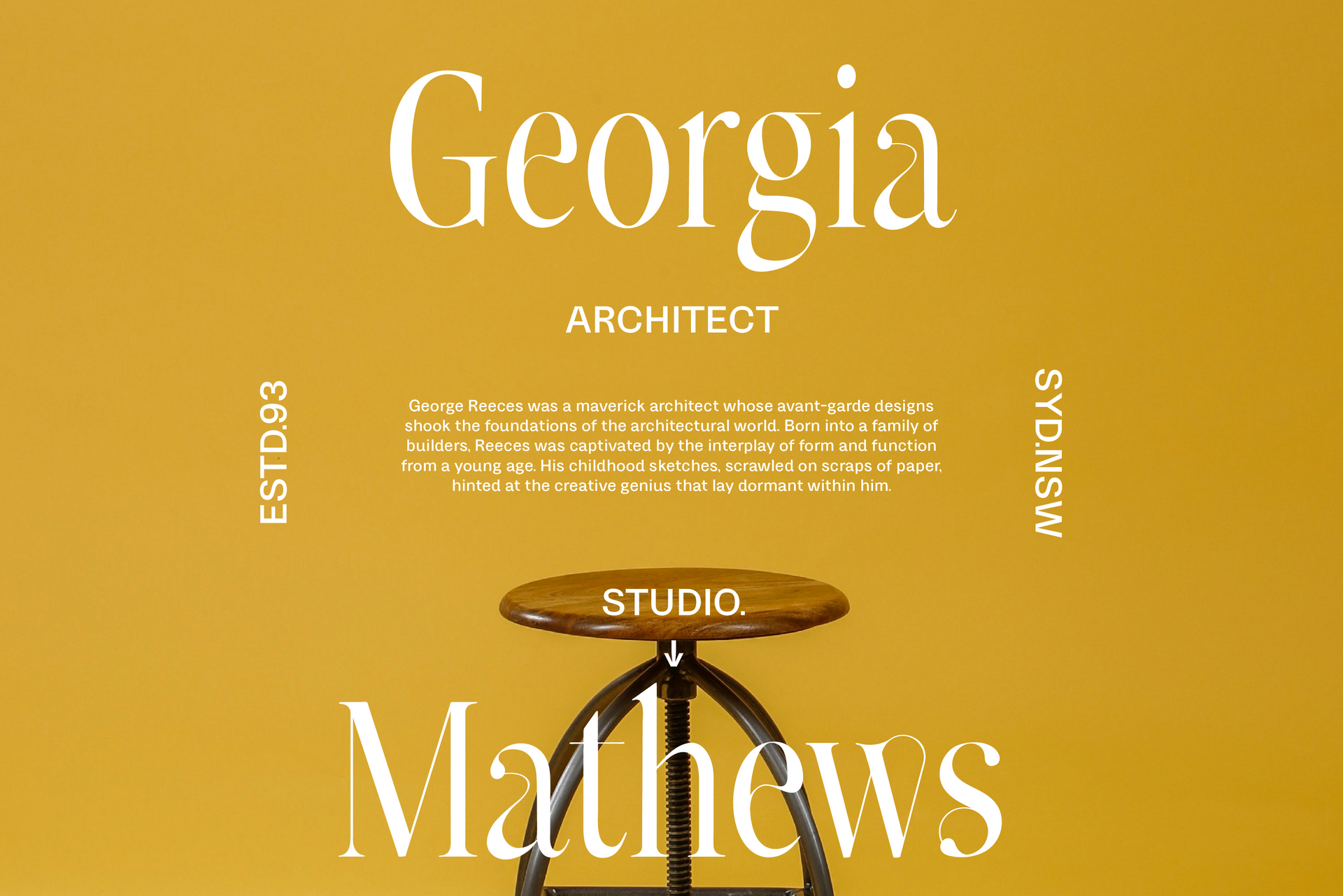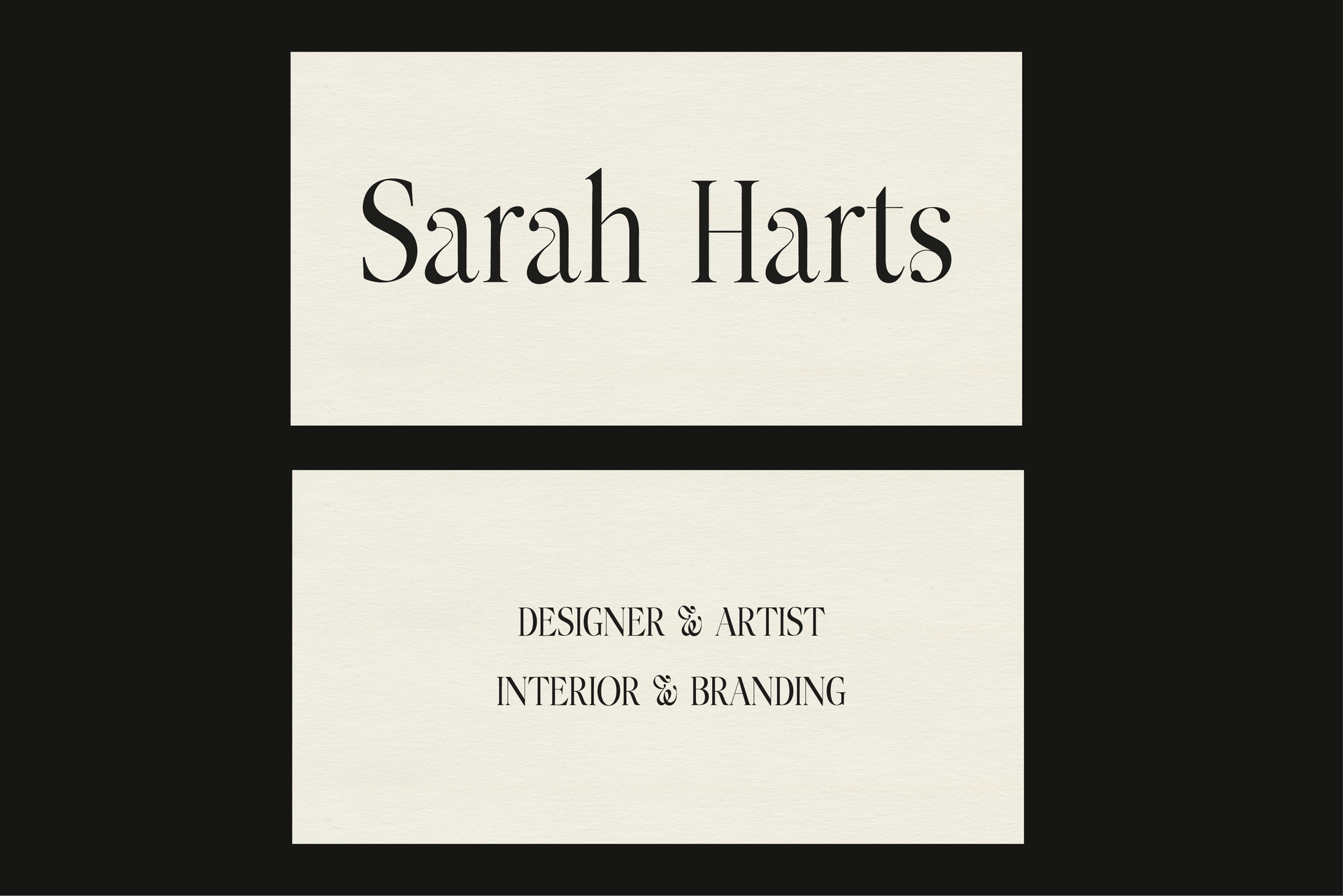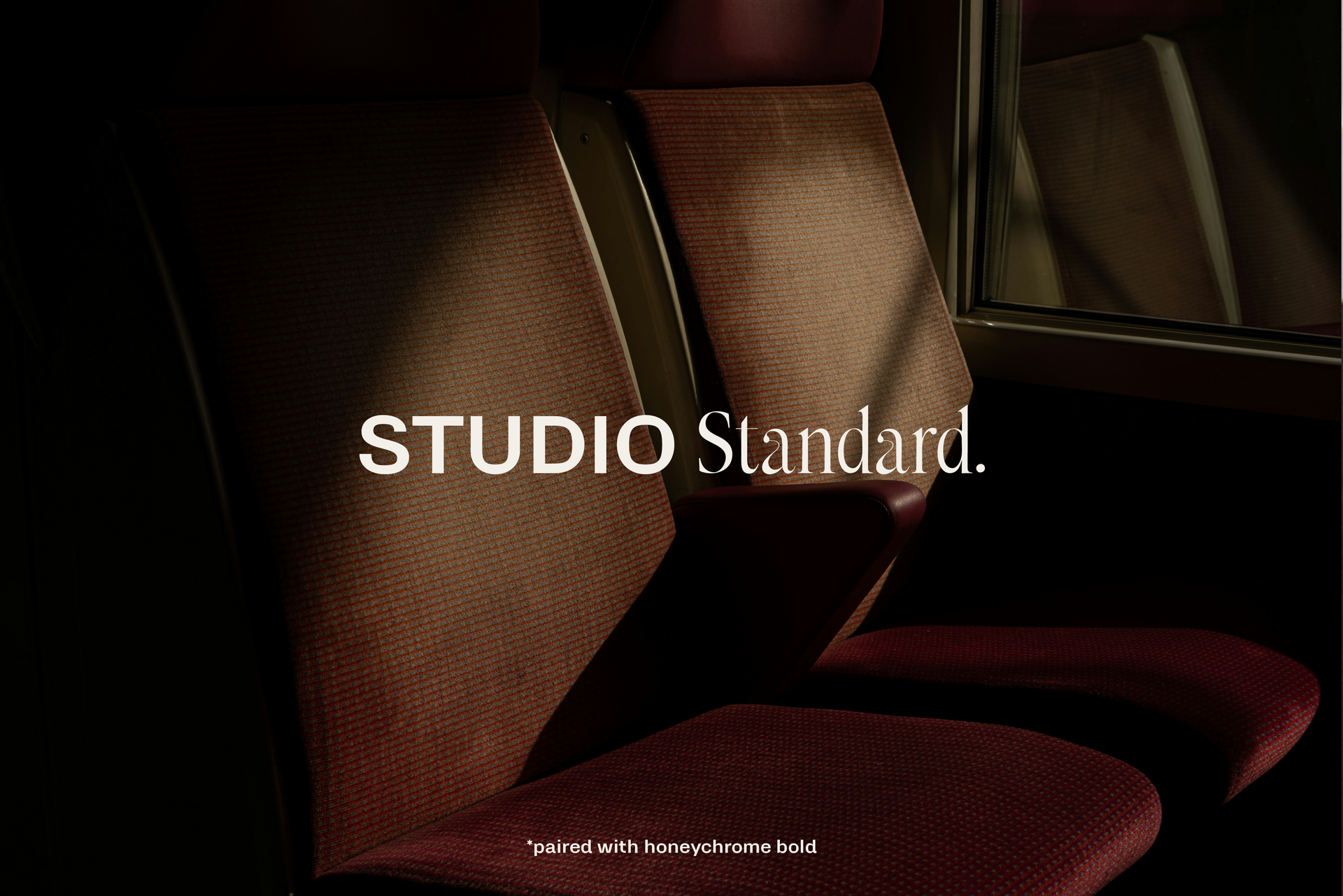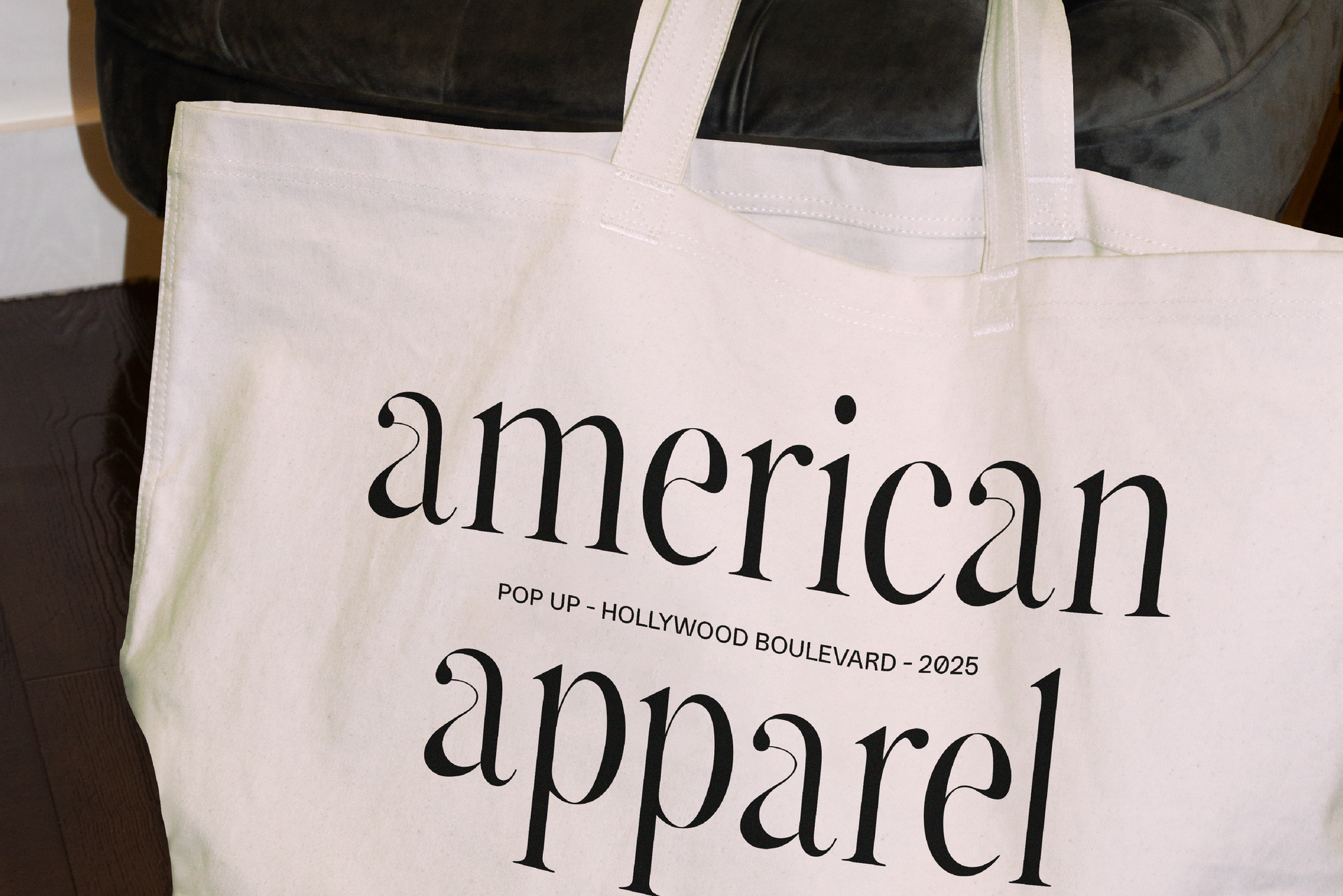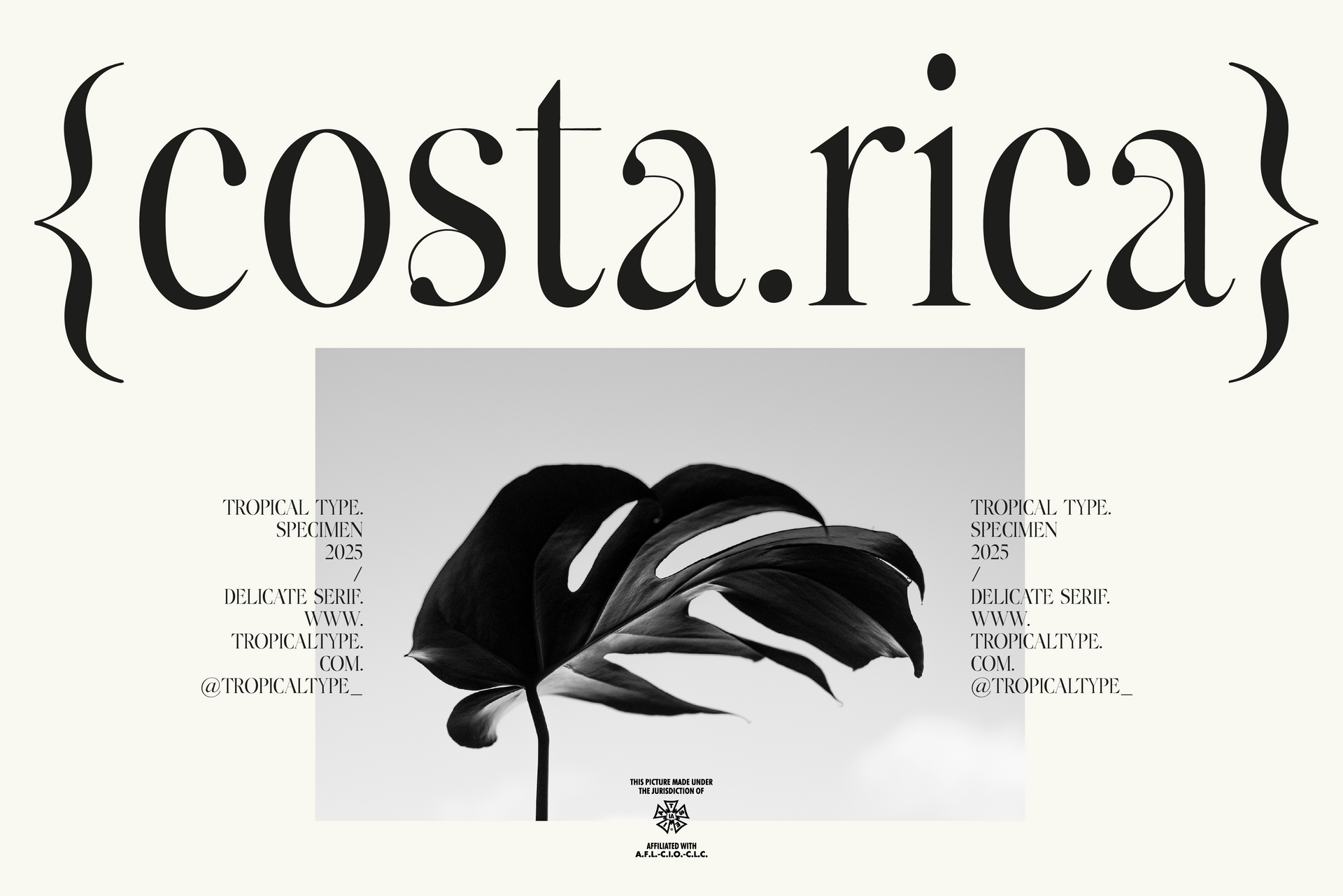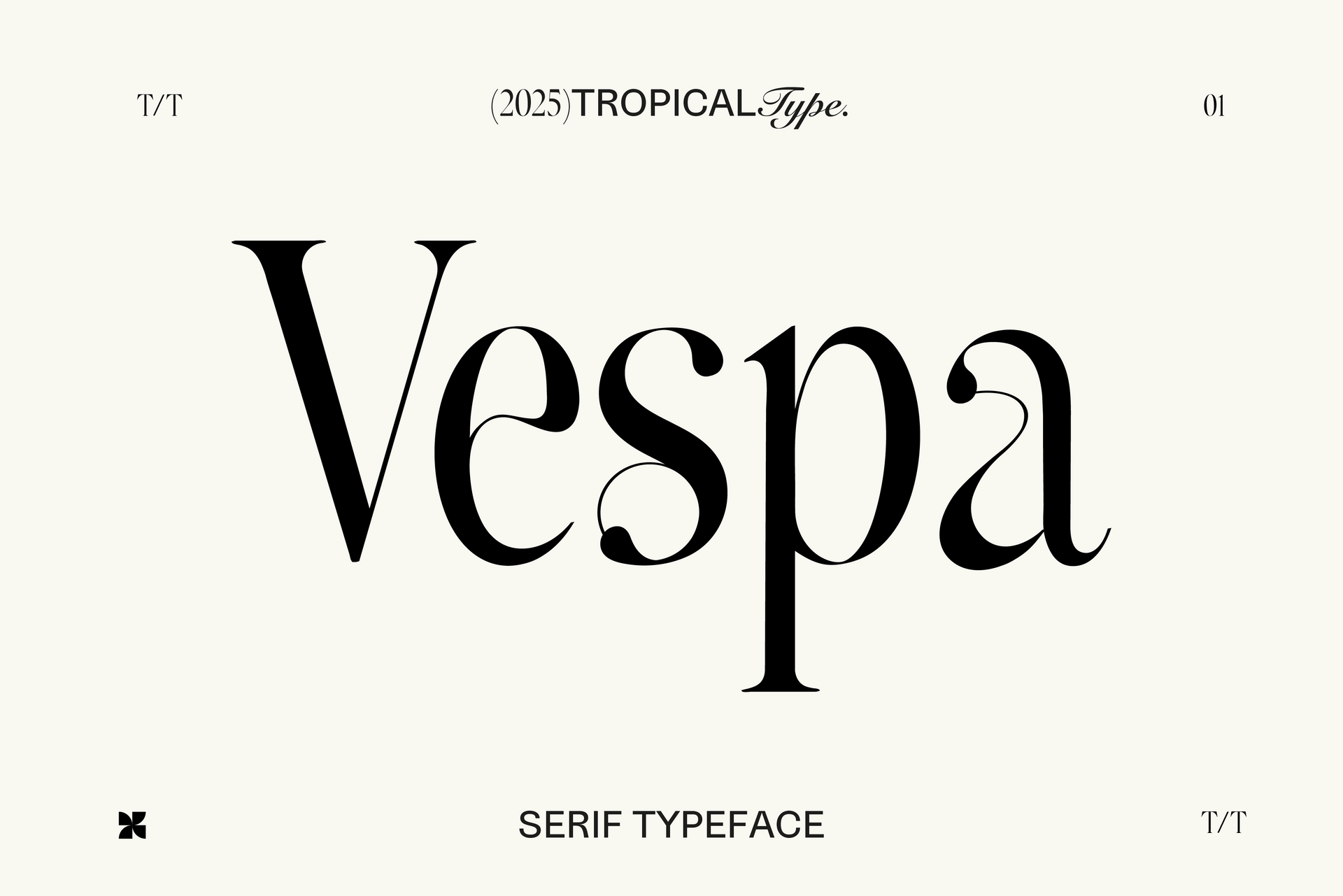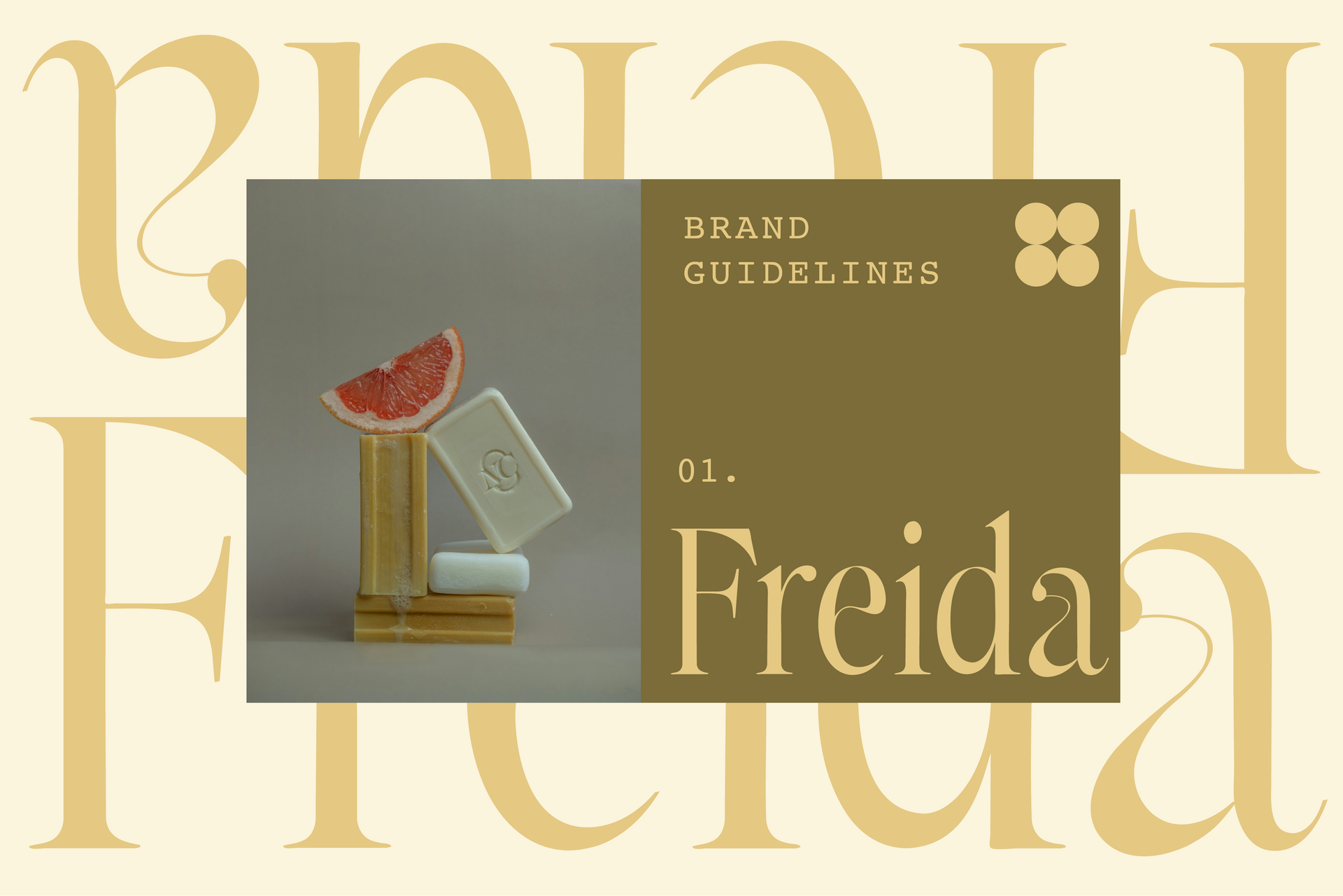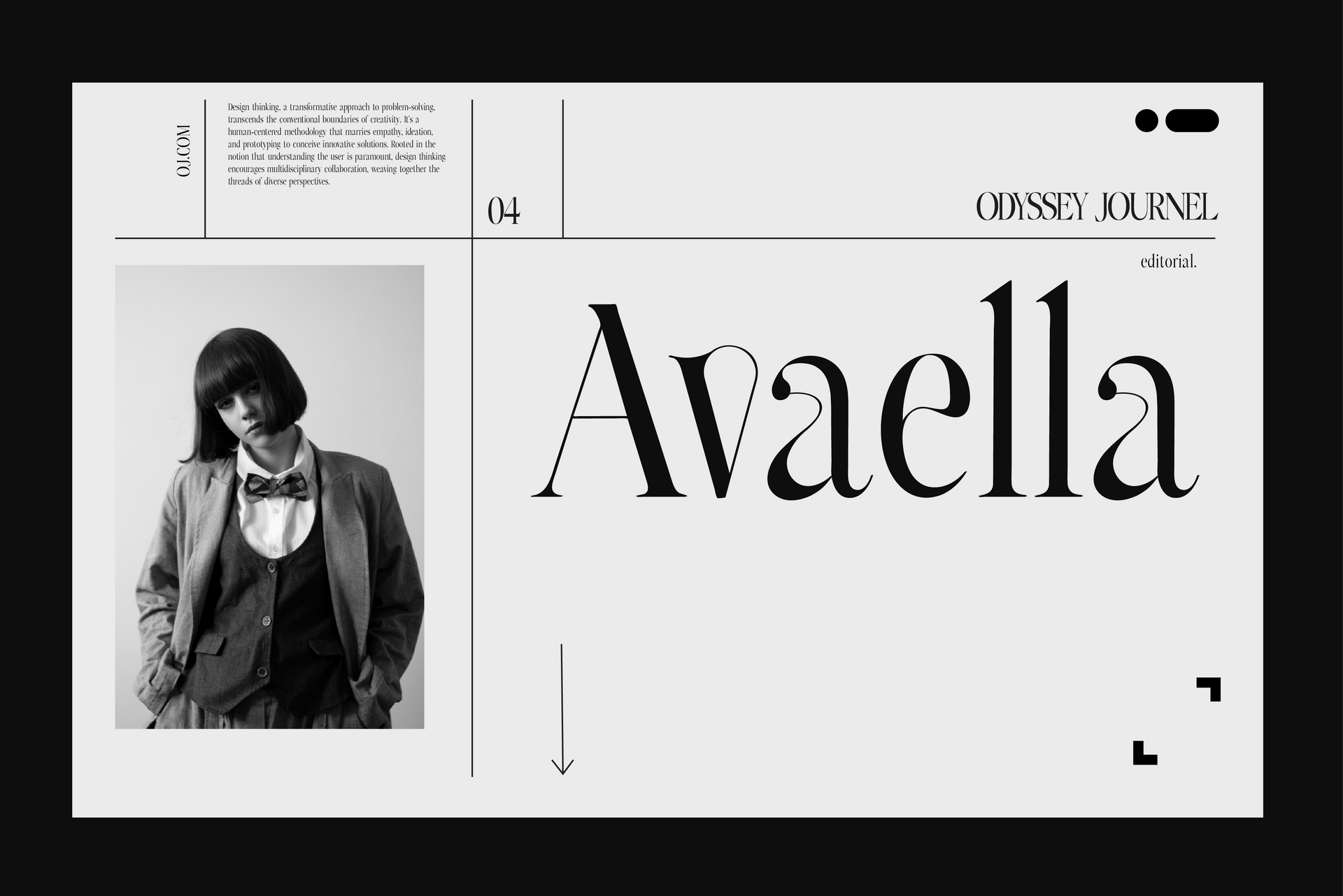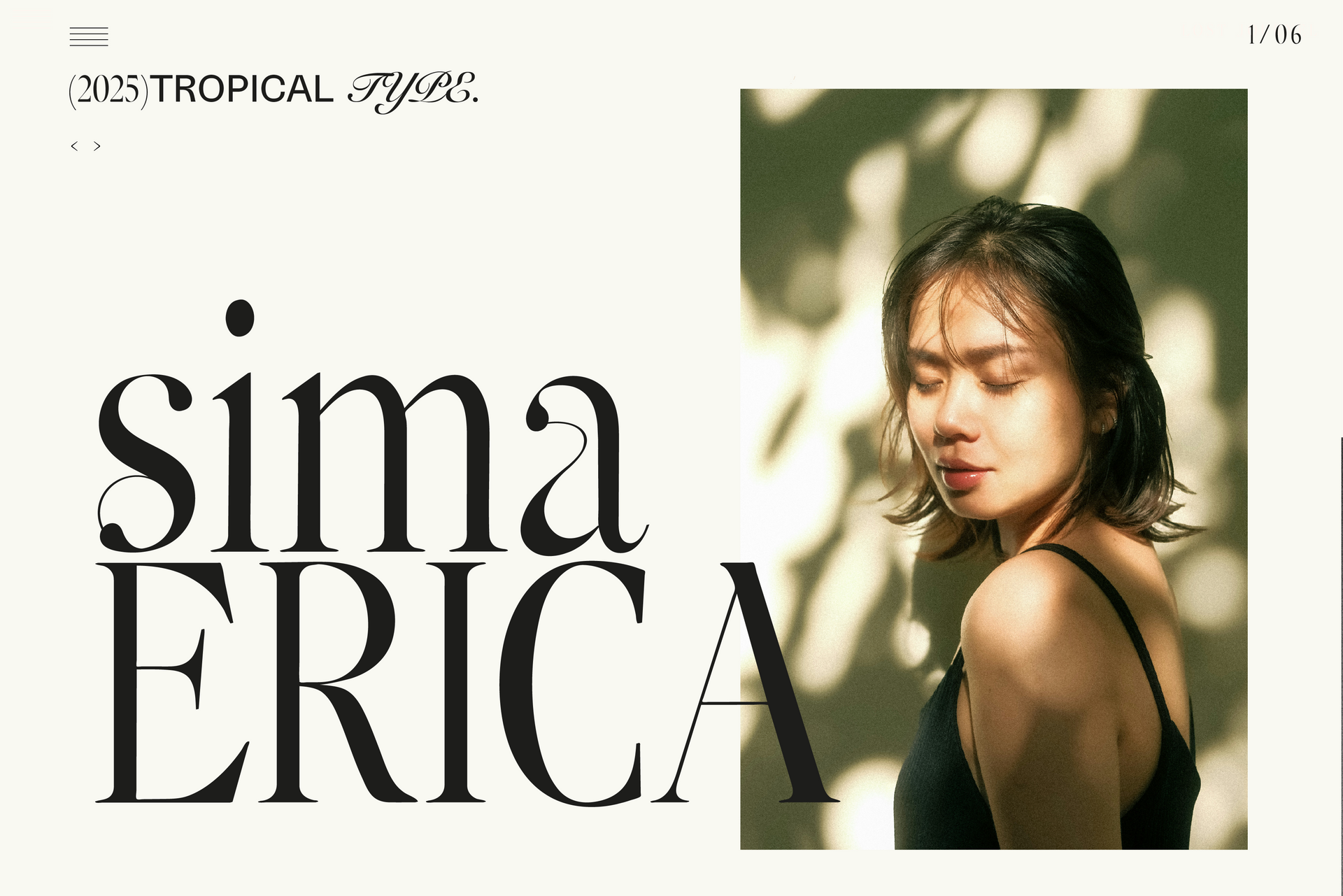
Vespa Serif
Vespa is a delicate high contrast fashion serif. It's unique pencil thin curves create unforgettable typography making it great for stylish logos or headers. Slightly condensed with traditional serifs, Vespa emphasises class, while still being ultra modern.
Non English glyphs included:
Ą Á  À Ä Å Ã Æ Ć Ç Ę É Ê È Ë Í Î Ì Ï Ł Ń Ñ Ó Ô Ò Ö Õ Ø Œ Ś Š Ú Û Ù Ü Ý Ÿ Ź Ż